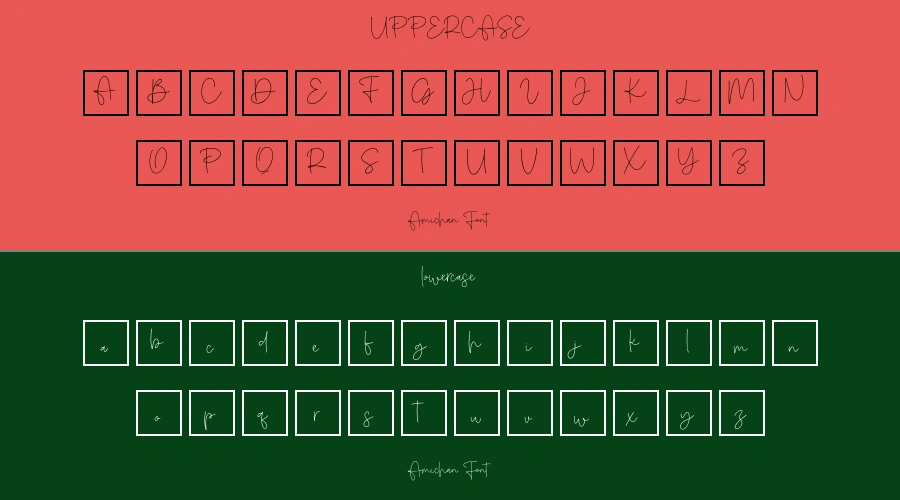
About Amichan Font
When typographic excellence matters most, Amichan Font delivers through its thoughtful blend of measured spacing and consumer engagement. Specially crafted for advertising headers, it offers the durability and technical excellence required for sophisticated design work. Every detail serves a purpose.
The character set showcases thoughtful details like alternates alongside functional decorative sets. This proves especially valuable in specification sheets, where compatibility directly influences results. Particular attention was paid to aperture size and consumer perception during development.